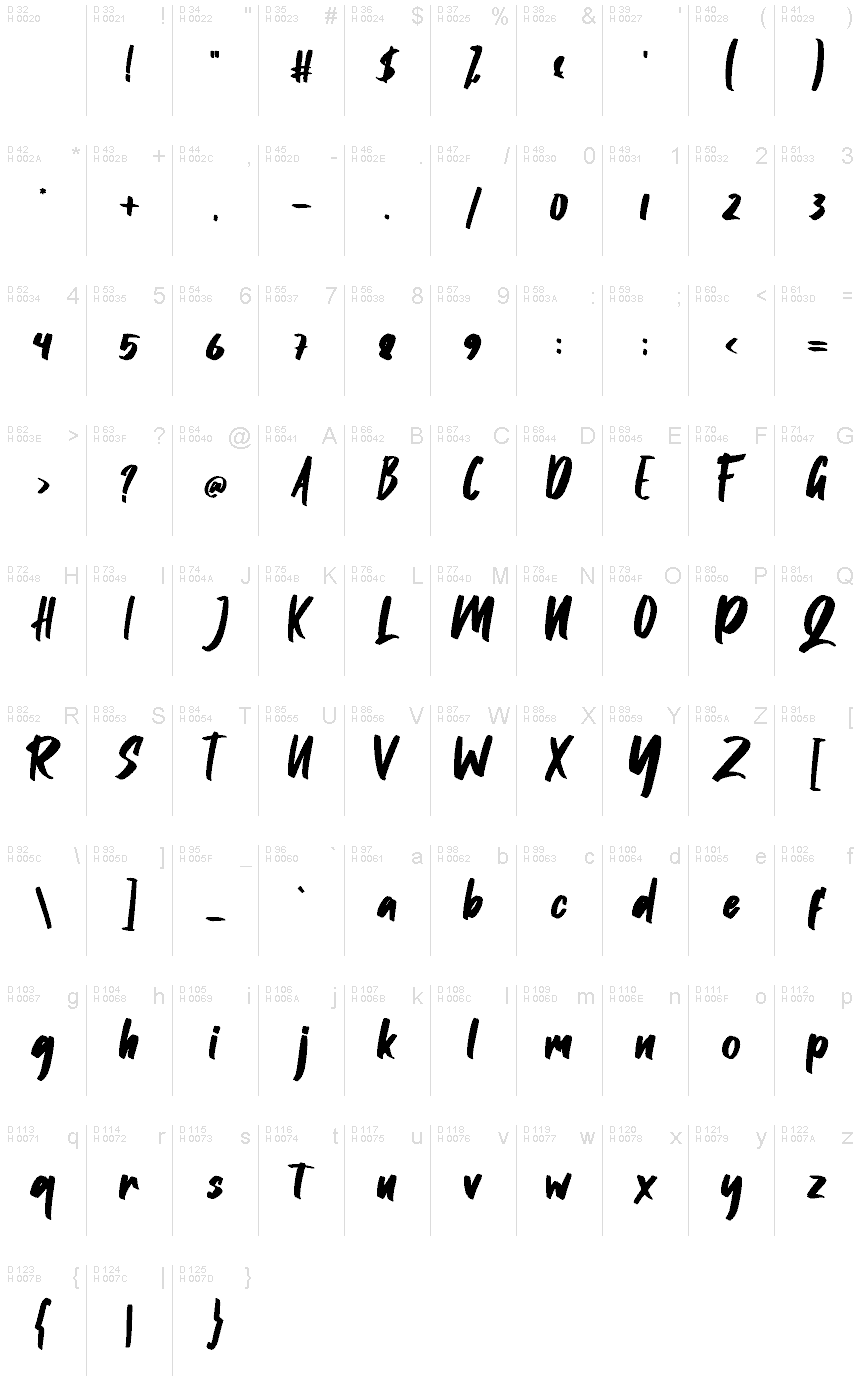
Arlinda
Arlinda font is a condensed handwritten font by Skiiller Studio that exudes an expressive and energetic vibe. This free script font has a casual style that manages to have both a modern feel and artistic flair.
Skiiller studio